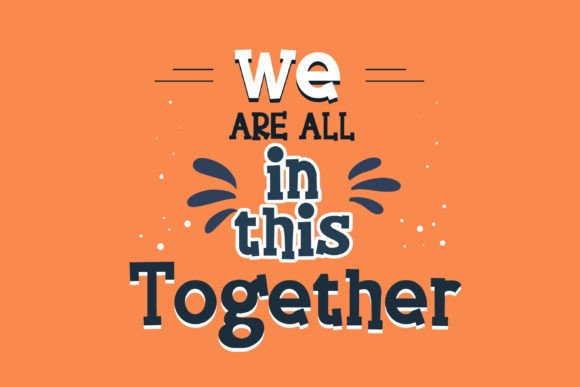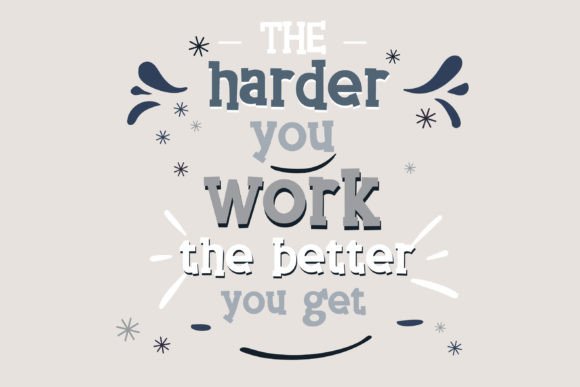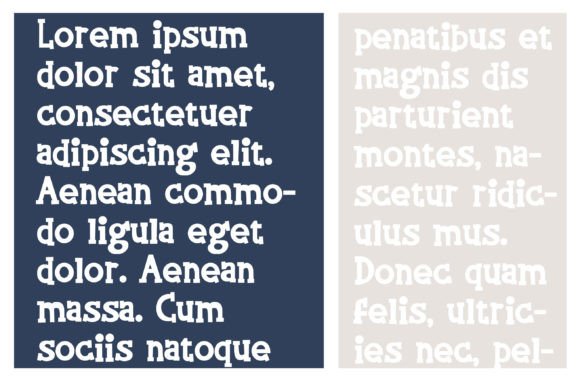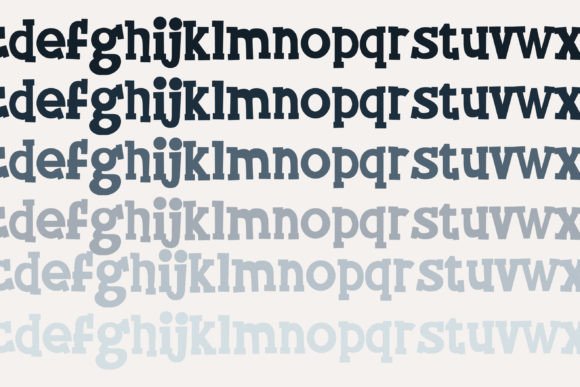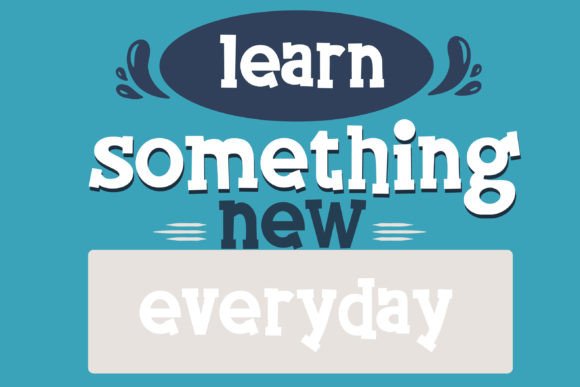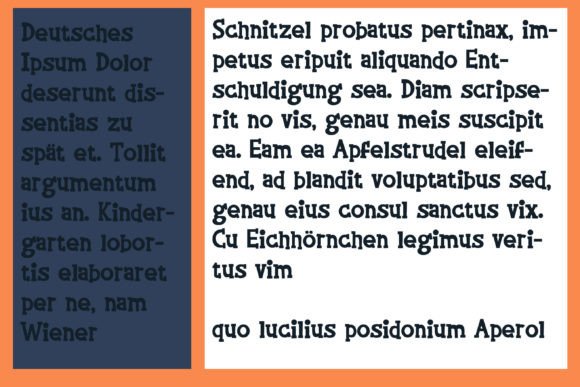
Introduction to Jingler Font Font
Fonts play a crucial role in design, and the Jingler Font font is a typeface that brings both character and versatility to any project. Whether you’re working on a branding project, a website, or a print design, the Jingler Font font offers a unique style that can elevate your work.
This whimsical and modern serif font is a perfect blend of charm and sophistication.
Its graceful strokes and rounded edges give it a soft, approachable feel, while its modern design ensures it remains fresh and contemporary .
Key Features of Jingler Font Font
Why Choose Jingler Font Font?
The Jingler Font font is more than just a typeface – it’s a design tool that helps you communicate your message with style and clarity. Its unique character set and versatile design make it suitable for a wide range of applications, from elegant invitations to bold headlines.
With its carefully crafted letterforms and balanced proportions, the Jingler Font font ensures readability and visual appeal across all mediums.
What makes Jingler Font font special?
The Jingler Font font stands out with its unique design, exceptional readability, and versatility across various design applications.